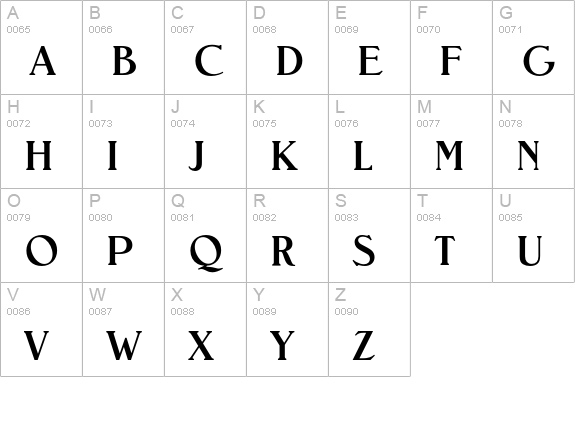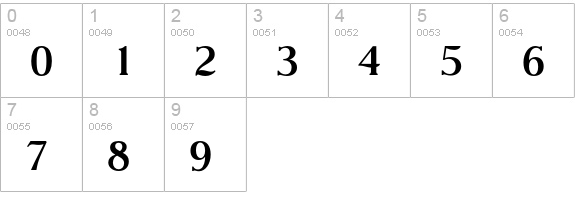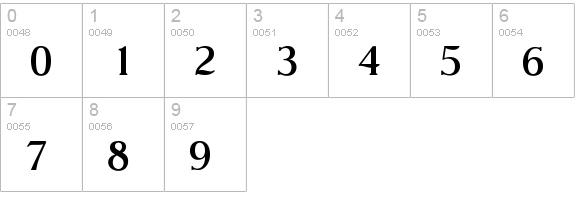
Nevada-Medium is a balanced, medium-weight variant in the Nevada typeface family \xE2\x80\x94 well suited to sub-headlines, navigation, and balanced editorial work.
Nevada-Medium font is a versatile and modern typeface that strikes the perfect balance between elegance and readability. With its clean lines and sleek design, this font is ideal for a wide range of design projects, from branding to editorial layouts. The Nevada-Medium font exudes a sense of sophistication and professionalism, making it a great choice for both digital and print applications. One of the best features of the Nevada-Medium font is that it is available for free download at FontsMarket.com. This means that you can easily access this high-quality font without any cost, making it a valuable addition to your font library. Whether you are a designer, marketer, or hobbyist, Nevada-Medium font offers a stylish and contemporary option for your creative projects. Download Nevada-Medium font today and elevate your designs with its timeless appeal.